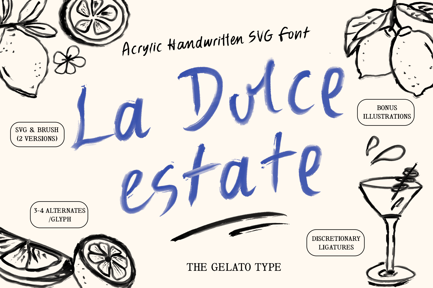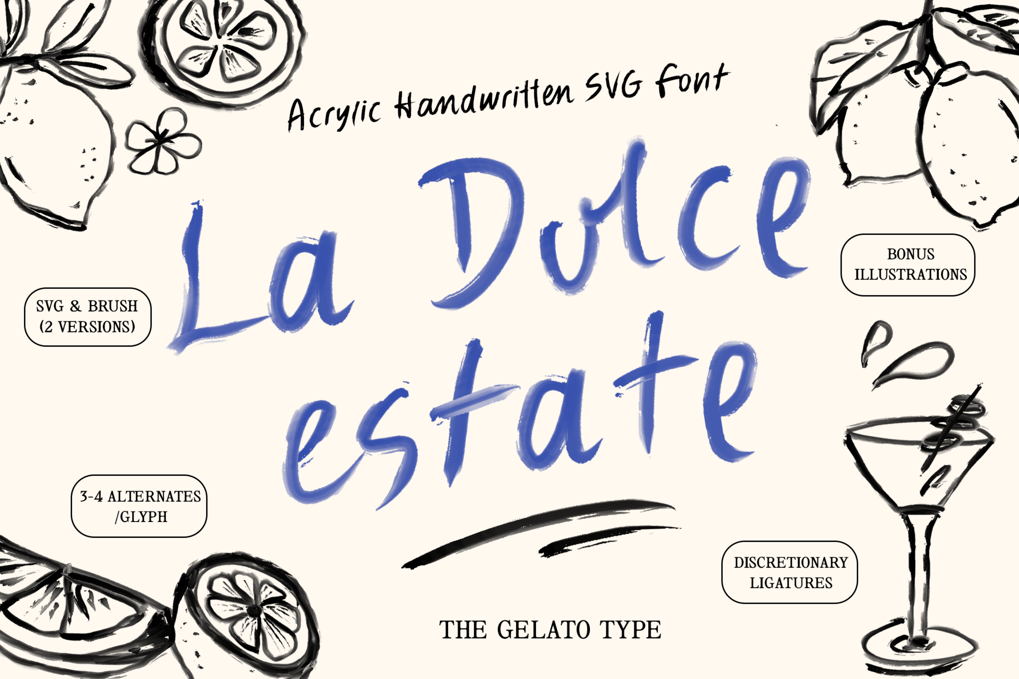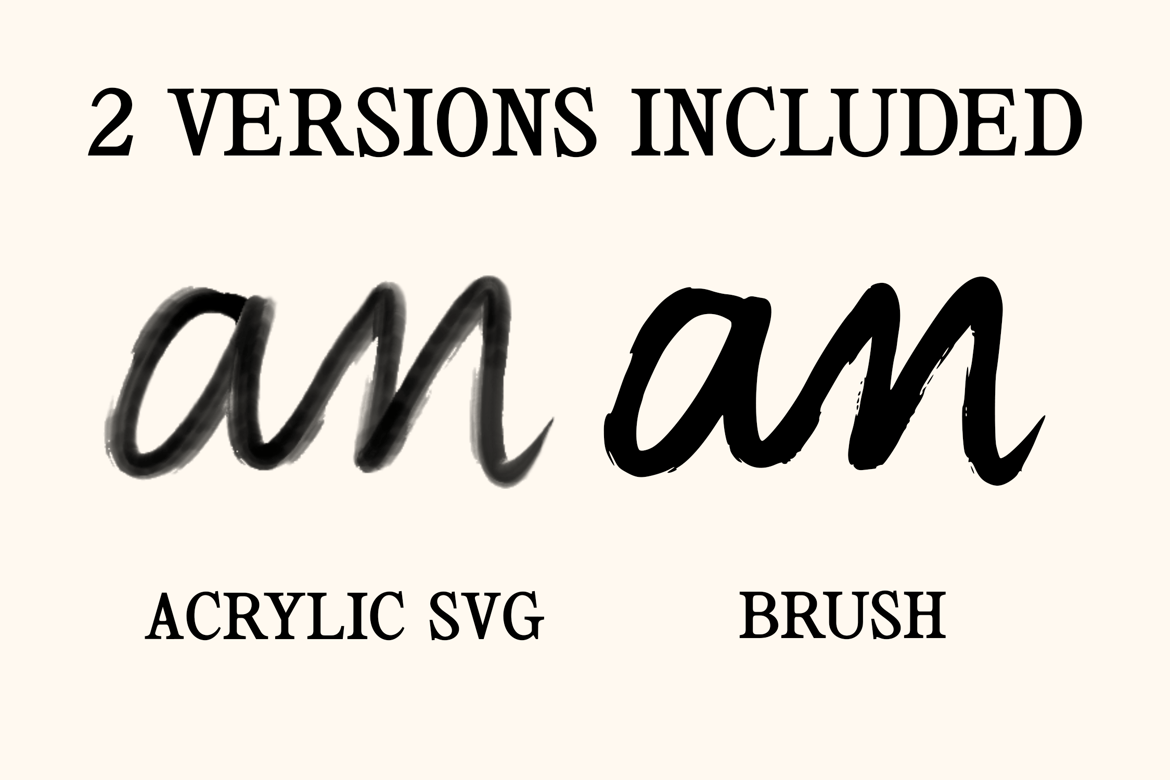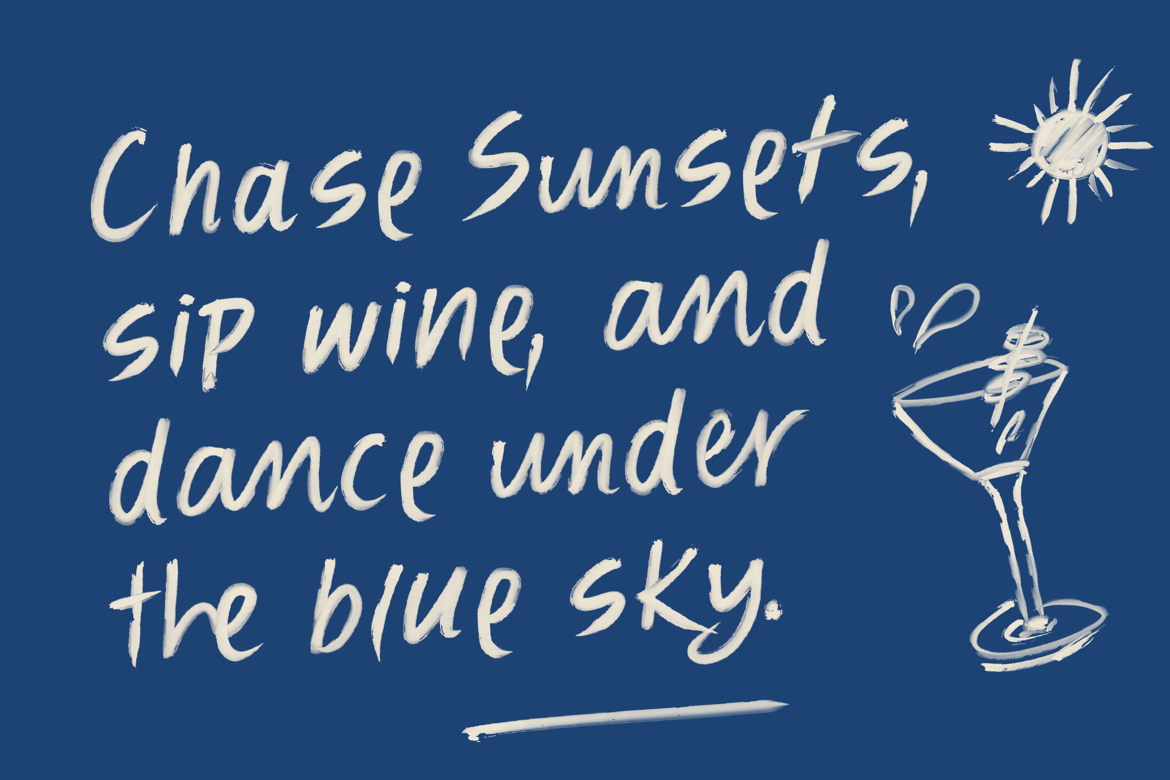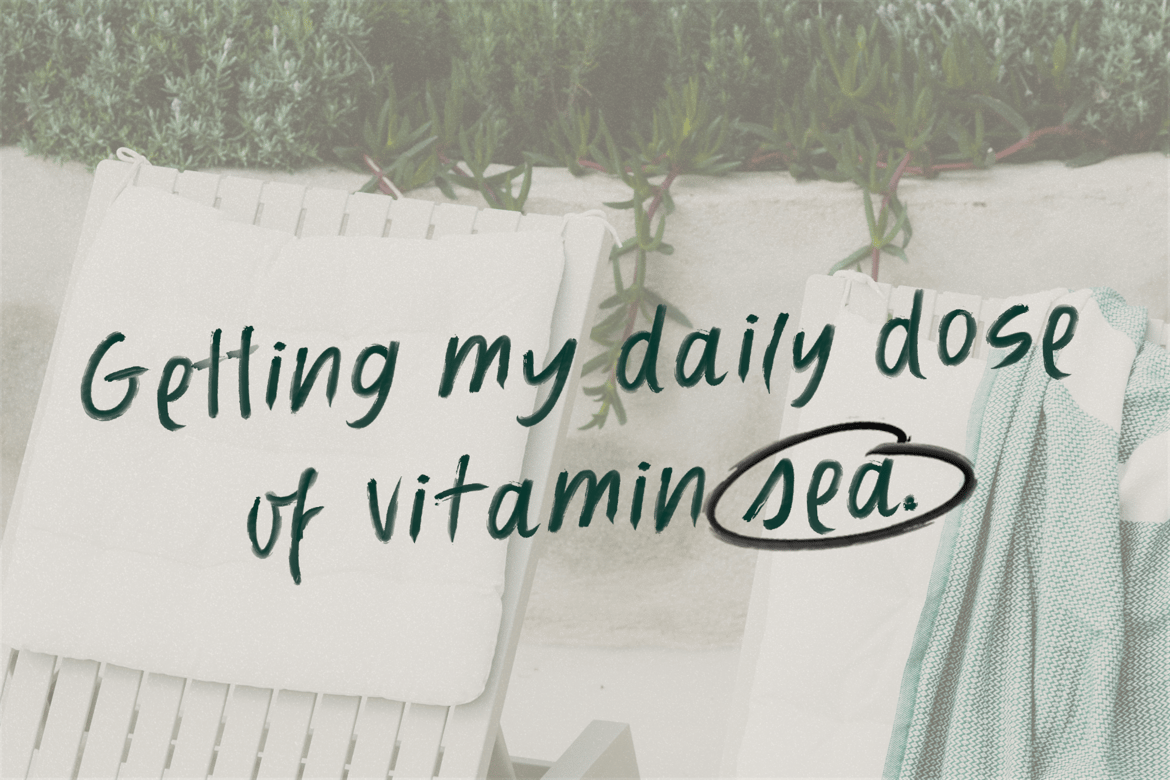
La Dolce Estate Handwritten SVG Brush Font
What sets “La Dolce Estate” apart is its lively vibe, offering endless creative possibilities.
Enhanced with OpenType Features, “La Dolce Estate” allows you to effortlessly create custom typography with a genuine, artisanal feel with discretionary ligatures and 3-4 alternates per glyph.